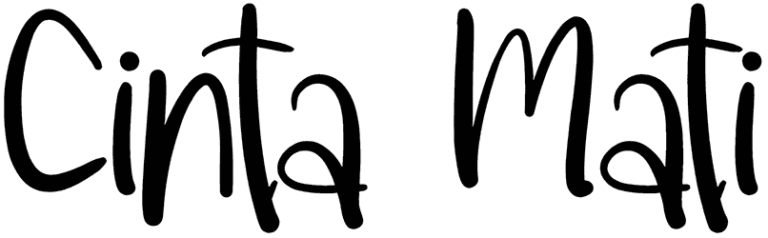
Anglina Farmhouse Font
When you use a cursive and natural letterform like this one to adorn your letters, the outcome will have a casual and friendly vibe. The Anglina Farmhouse font could be a perfect selection for many projects like a wedding invitation card or a café sign. Give it a shot and test this brush font for your next project to see how ravishing it will be.